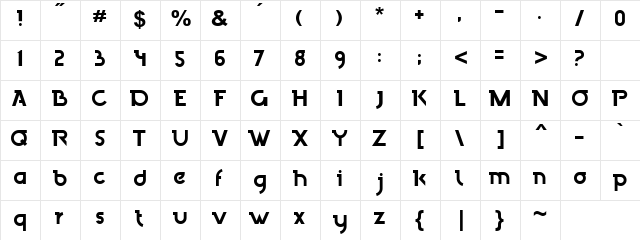
casico valine Regular
Design Context for casico valine Typeface
casico valine is a composed and adaptable typeface that performs quietly and consistently across a wide range of design contexts.